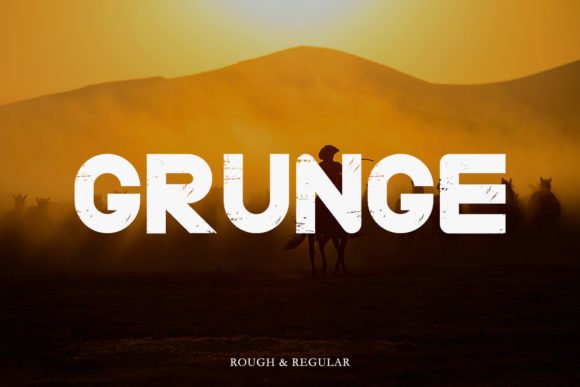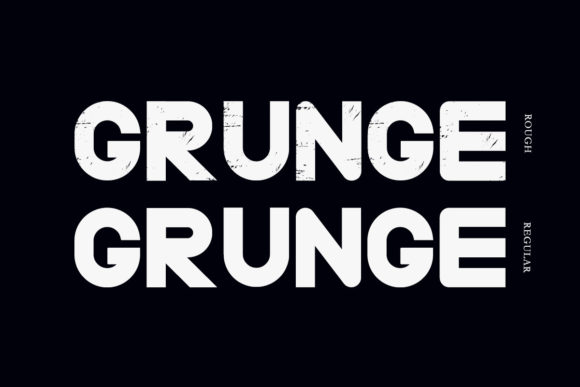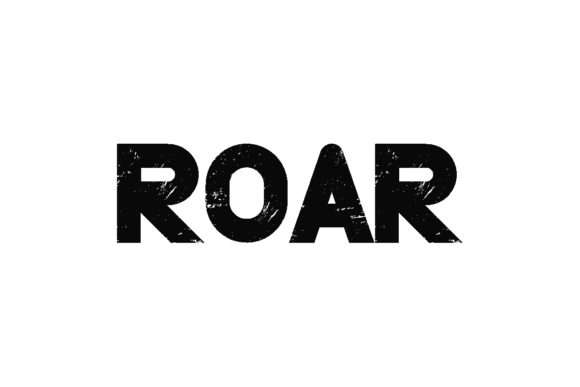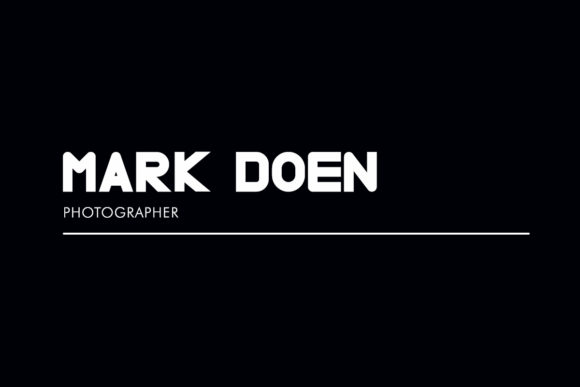
Get Ready to Riff: The Power of Grunge Font
You know that moment when a single font choice can elevate an entire design project? It’s like finding the perfect guitar riff to make your music go from meh to mesmerizing. That’s exactly what the Grunge Font does – it adds a layer of edginess and sophistication to your creative endeavors.
The Grunge Font is a thick and simple sans serif font, perfect for designers who want to add a bit of grit to their projects. Its versatility makes it a valuable addition to any design arsenal, allowing you to match it seamlessly with a wide range of creative ideas. Whether you’re working on a music festival flyer, a fashion brand logo, or a street art mural, the Grunge Font is sure to make your design stand out from the crowd.
- Font Style: Grunge font is a distressed, rough, and weathered font that mimics the look of aged, worn-out text.
- Unique Characteristics: The font features a unique blend of rough textures, scratches, and imperfections that give it a vintage, industrial look.
Grunge Font Review
When I first laid eyes on the Grunge Font, I knew it was something special. The distressed, gritty aesthetic is a perfect fit for any project that needs a bit of edge. ✨ The font’s bold, sans-serif design makes it easy to read, even in smaller sizes.
The Grunge Font is also incredibly versatile. It works well in a variety of contexts, from music posters to urban streetwear designs. ✨ The font’s flexibility is one of its strongest selling points.
- ⚠️ Limited character set: The Grunge Font may not include all the special characters you need, which can be a problem if you’re working on a project that requires a lot of international characters.
- ⚠️ Not suitable for body text: While the Grunge Font is perfect for headlines and titles, it’s not the best choice for body text due to its bold, attention-grabbing nature.
The Grunge Font is a great choice for any project that needs a bit of grit and attitude. While it may have some limitations, its versatility and unique aesthetic make it a valuable addition to any designer’s toolkit. If you’re looking for a font that will really make your project stand out, the Grunge Font is definitely worth considering.
The Grunge Font is ideal for creating a distressed, vintage look in designs such as:
- Music posters and flyers
- Retro-style advertisements
- Distressed textures and backgrounds